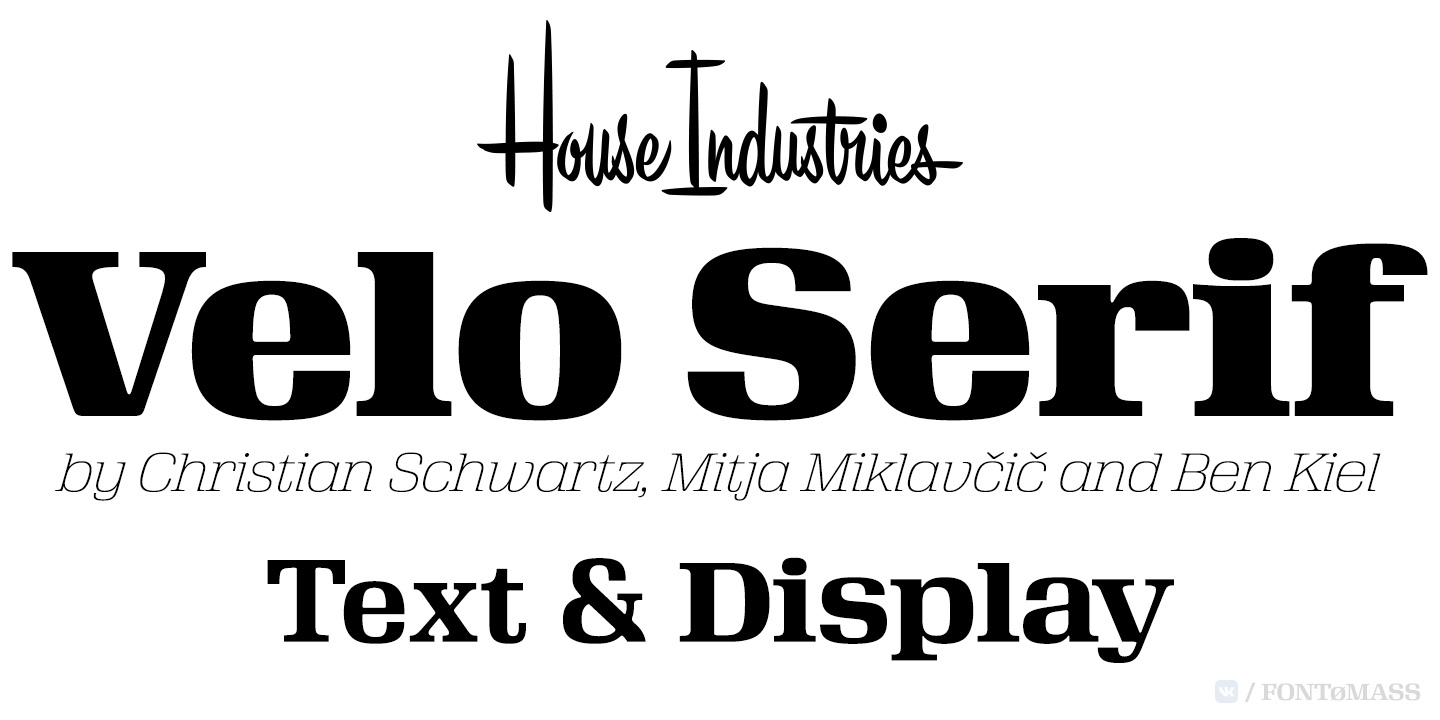
Velo Serif Font
Velo Serif Font is perfect for cycling brand identity, sports magazine layouts, athletic equipment packaging, fitness facility signage, endurance event marketing, outdoor gear branding, professional cycling team logos, and dynamic sports communications.
What makes Velo Serif Font exciting is its dynamic speed that captures the aerodynamic efficiency and competitive spirit of professional cycling and endurance athletics. The font features streamlined letterforms with flowing serifs and athletic proportions that evoke racing bikes, wind resistance, and the relentless pursuit of performance excellence. Its distinctive speed-inspired styling and competitive appeal communicate velocity, precision, and athletic dedication, making every message feel propelled by competitive energy and engineered for optimal performance.
The Velo Serif Font family includes regular weight with uppercase and lowercase letters, numerals, punctuation marks, and comprehensive special characters. Premium versions often feature multiple weights and speed-optimized alternates that enhance the aerodynamic, athletic aesthetic perfect for sports and performance applications.
The competitive character of Velo Serif Font makes it particularly valuable for cycling manufacturers, racing teams, and endurance sports companies. Its excellent readability ensures performance specifications and athletic messaging remain clear while maintaining the distinctive speed aesthetic that appeals to athletes seeking competitive advantage and performance optimization.
Sports marketers and athletic brand designers appreciate how Velo Serif Font effortlessly conveys speed and competitive excellence. The font's aerodynamic proportions and flowing details create powerful brand materials that establish connections with audiences passionate about cycling performance, endurance training, and competitive athletics.
The versatile speed of this typeface extends to triathlon events, performance nutrition brands, and athletic training services where competitive authenticity enhances athlete appeal. Velo Serif Font Free Download provides creative professionals with an essential tool for developing memorable, performance-driven designs that resonate with audiences who embrace cycling excellence, competitive spirit, and the aerodynamic pursuit of athletic perfection in today's performance-focused sports culture.